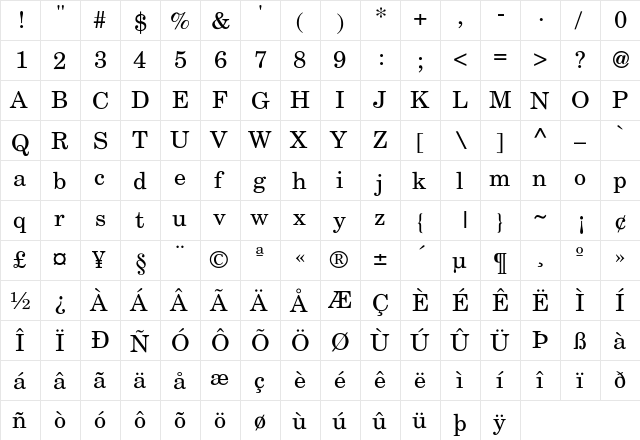
CenturySchlbk-Roman Regular
Design Context for CenturySchlbk-Roman Typeface
CenturySchlbk-Roman offers clean, dependable letterforms without strong stylistic allegiance, making it a practical choice for designers who need flexibility.
Pro Tip: Pair CenturySchlbk-Roman with a font of contrasting weight or personality to build a more expressive typographic hierarchy.